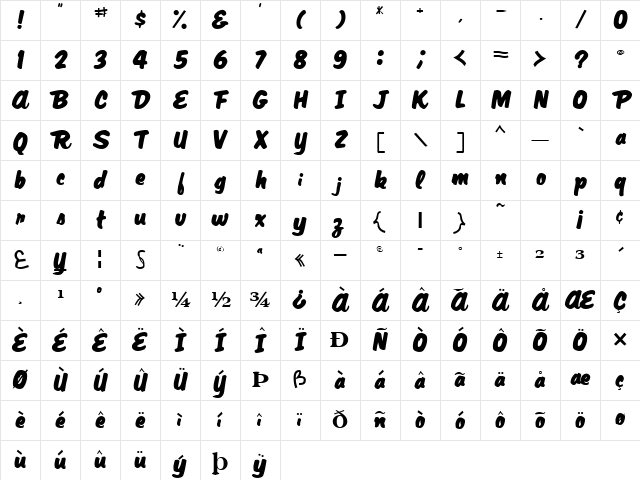
Mag Regular
Design Context for Mag
Mag is a composed and adaptable typeface that performs quietly and consistently across a wide range of design contexts.